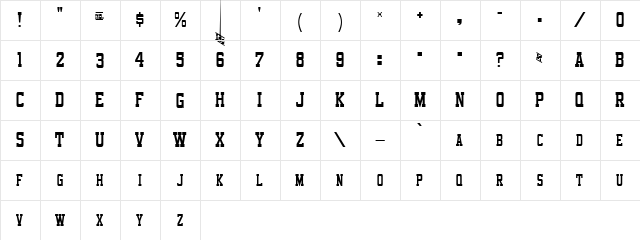
Funland Park Small Caps JL Regular
Design Context for Funland Park Small Caps JL Typeface
Funland Park Small Caps JL has an approachable, lighthearted character — its loose, expressive forms are well-suited to children's content, casual branding, and fun-first design.
Great for children's books, toy packaging, family event branding, and casual consumer-facing design.
Font Pairing: Pairs well with a rounded or humanist sans for body copy, maintaining the friendly tone without relying on Funland Park Small Caps JL to carry extended reading.
Pro Tip: Avoid using Funland Park Small Caps JL for long passages of text — it works best for headlines, labels, and short calls to action.